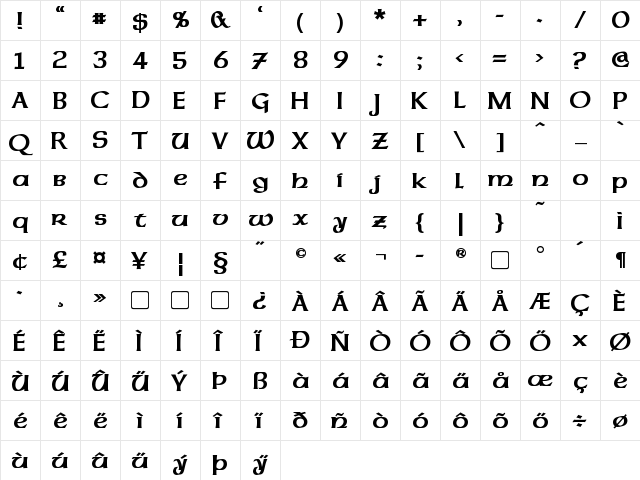
Dalelands Uncial Bold
Design Context for Dalelands Uncial Typeface
Dalelands Uncial takes a measured approach to typography — its balanced proportions and neutral character make it a reliable workhorse for both digital and print work. The heavy weight commands attention and anchors typographic hierarchies.